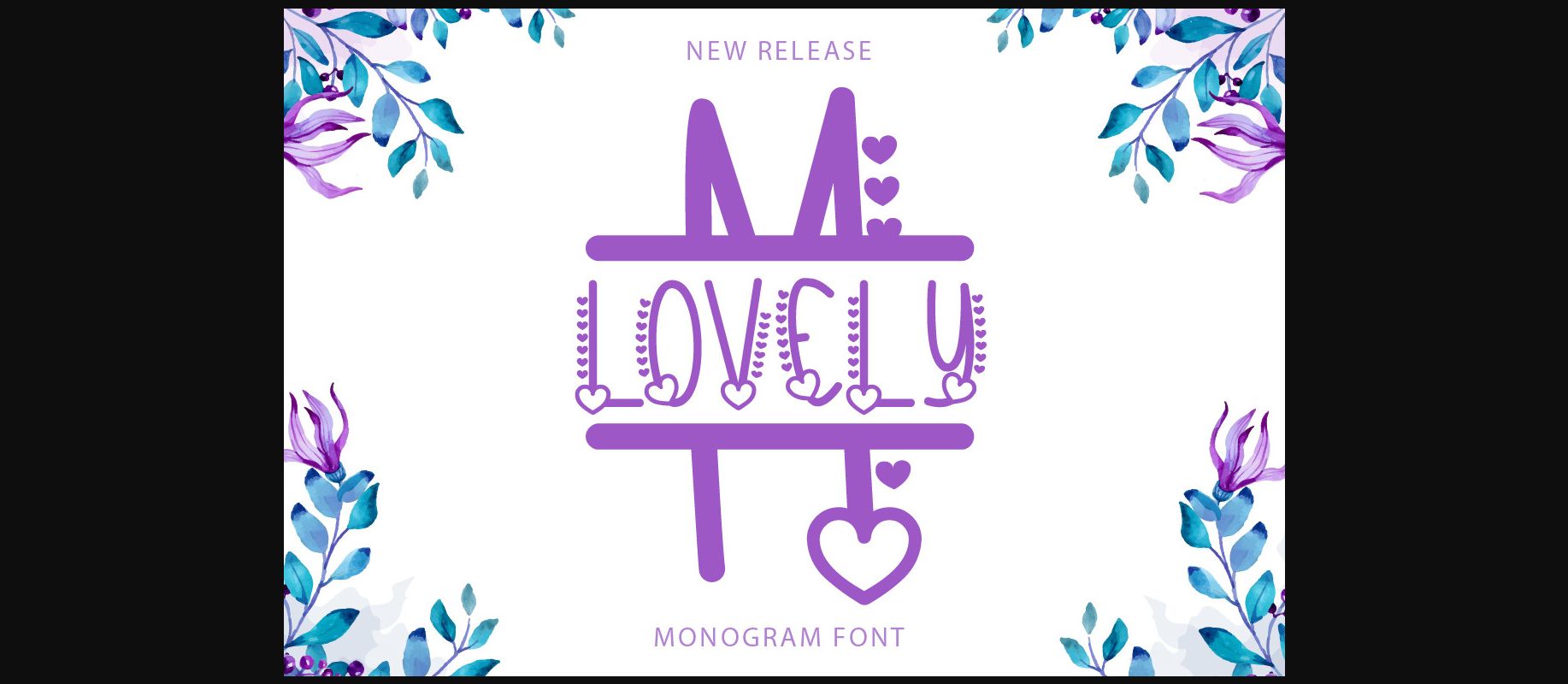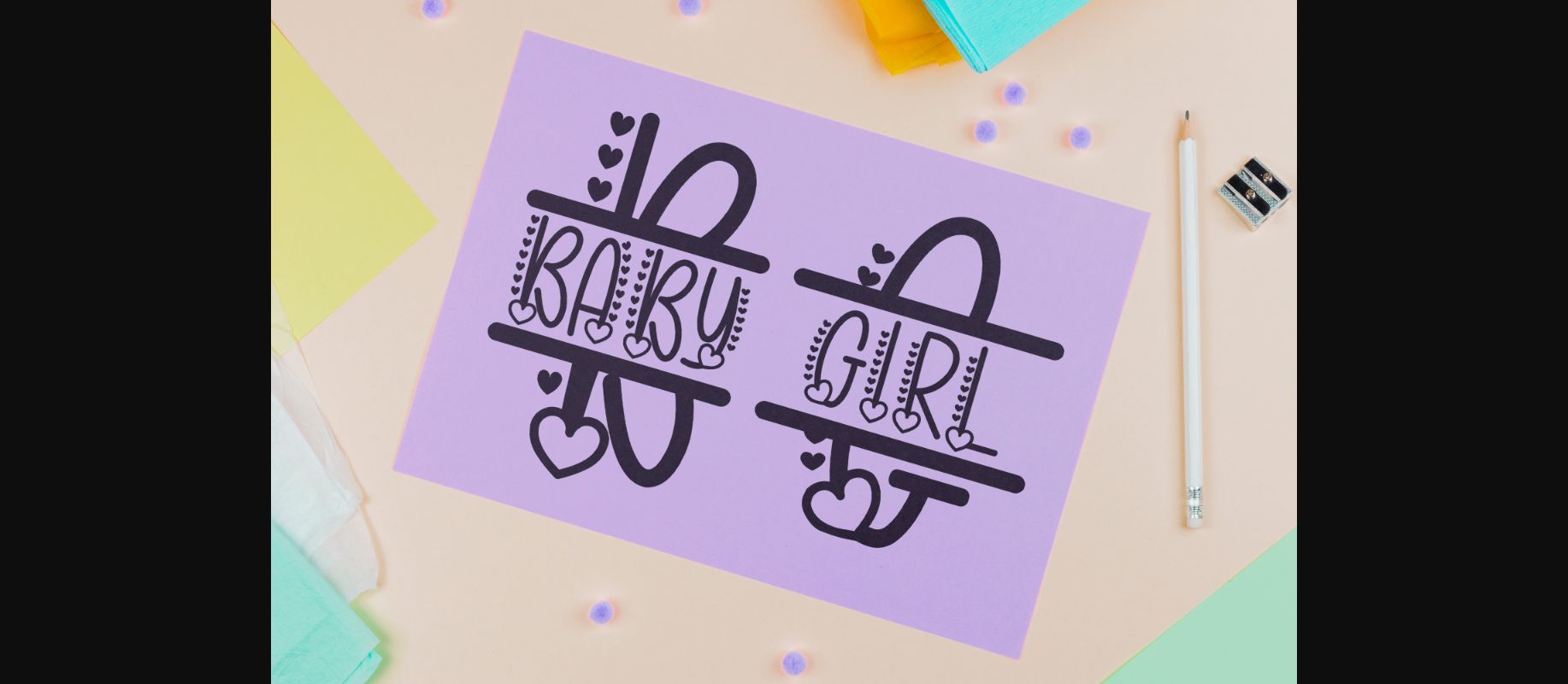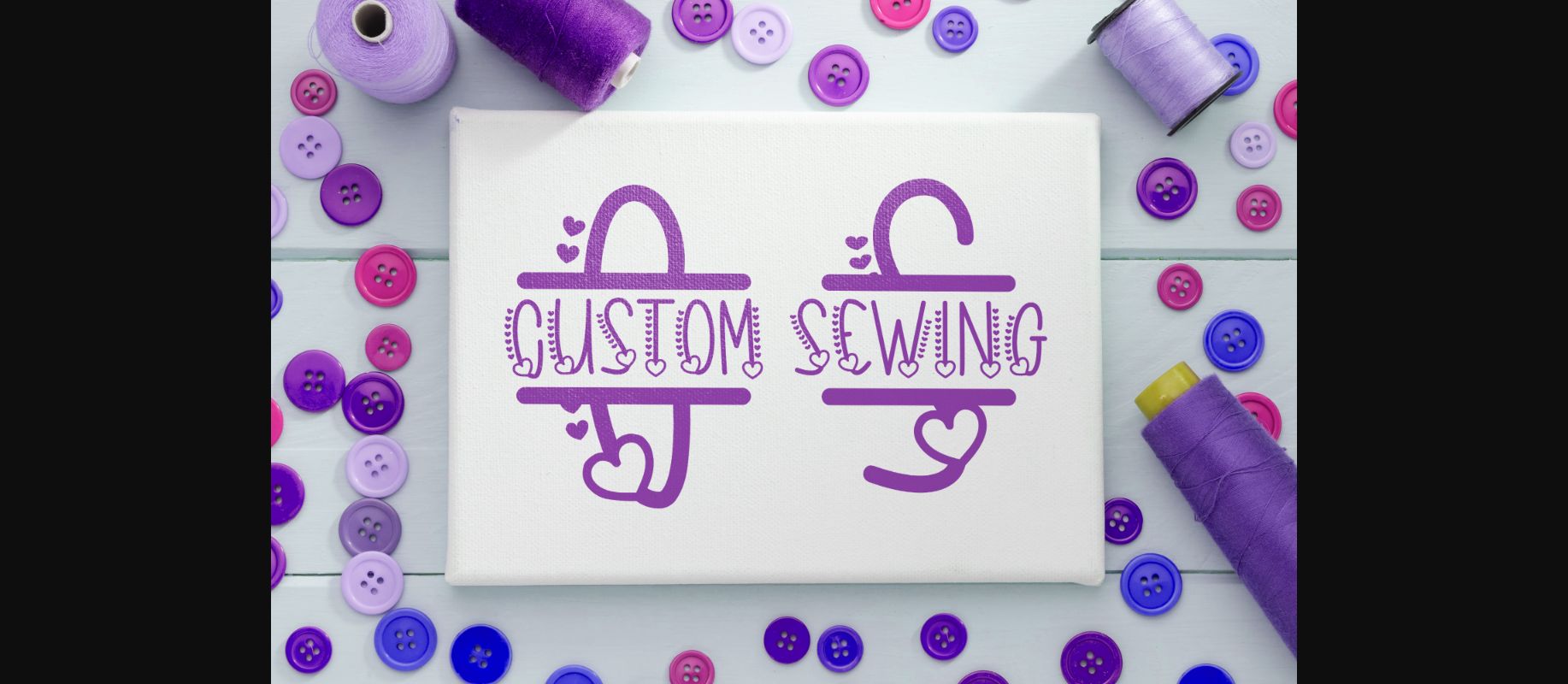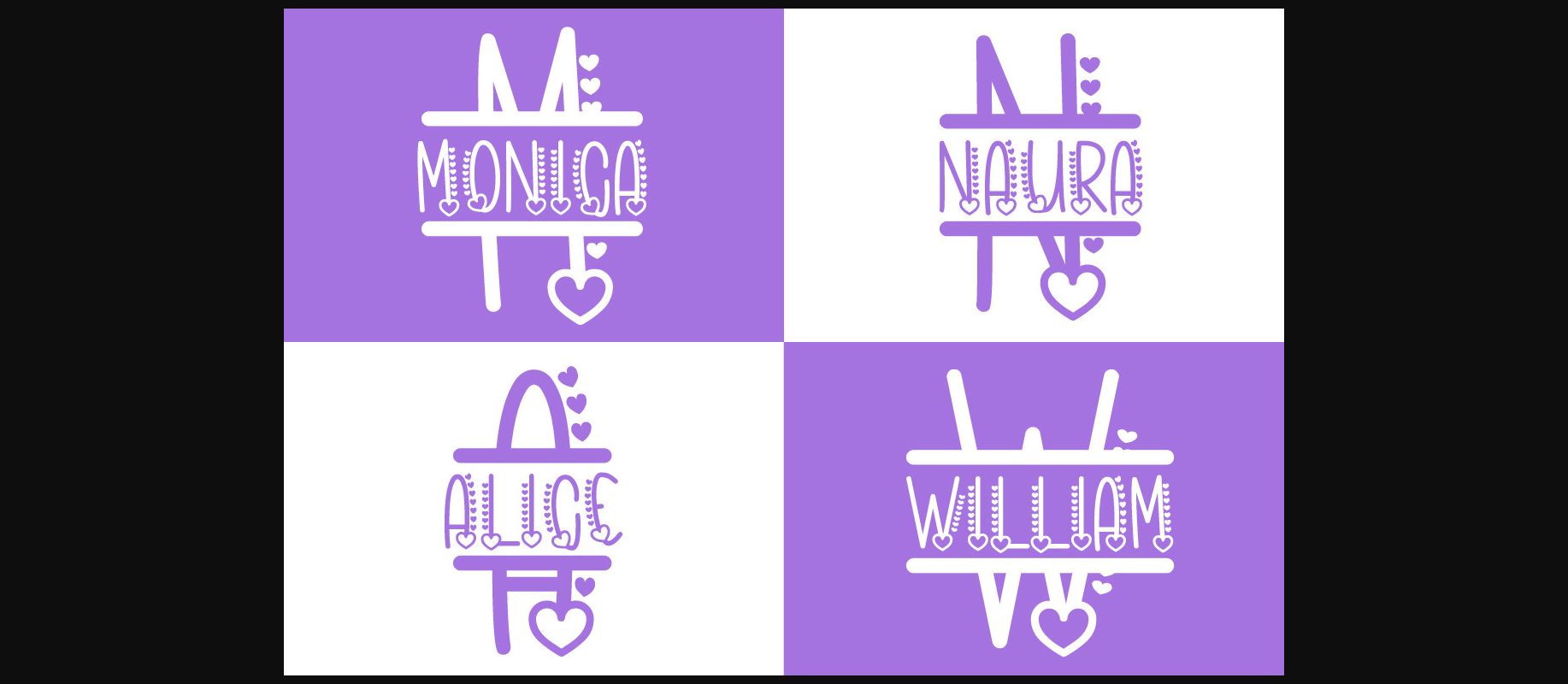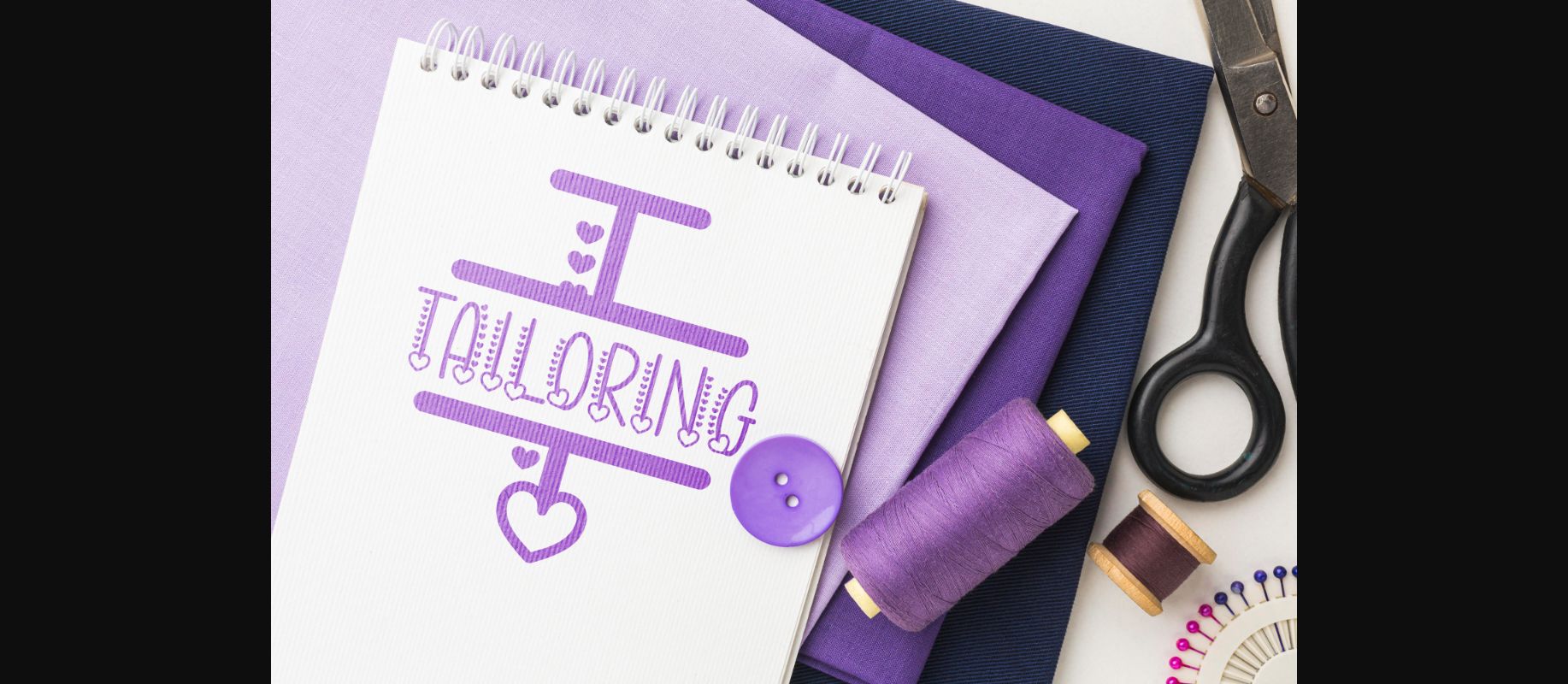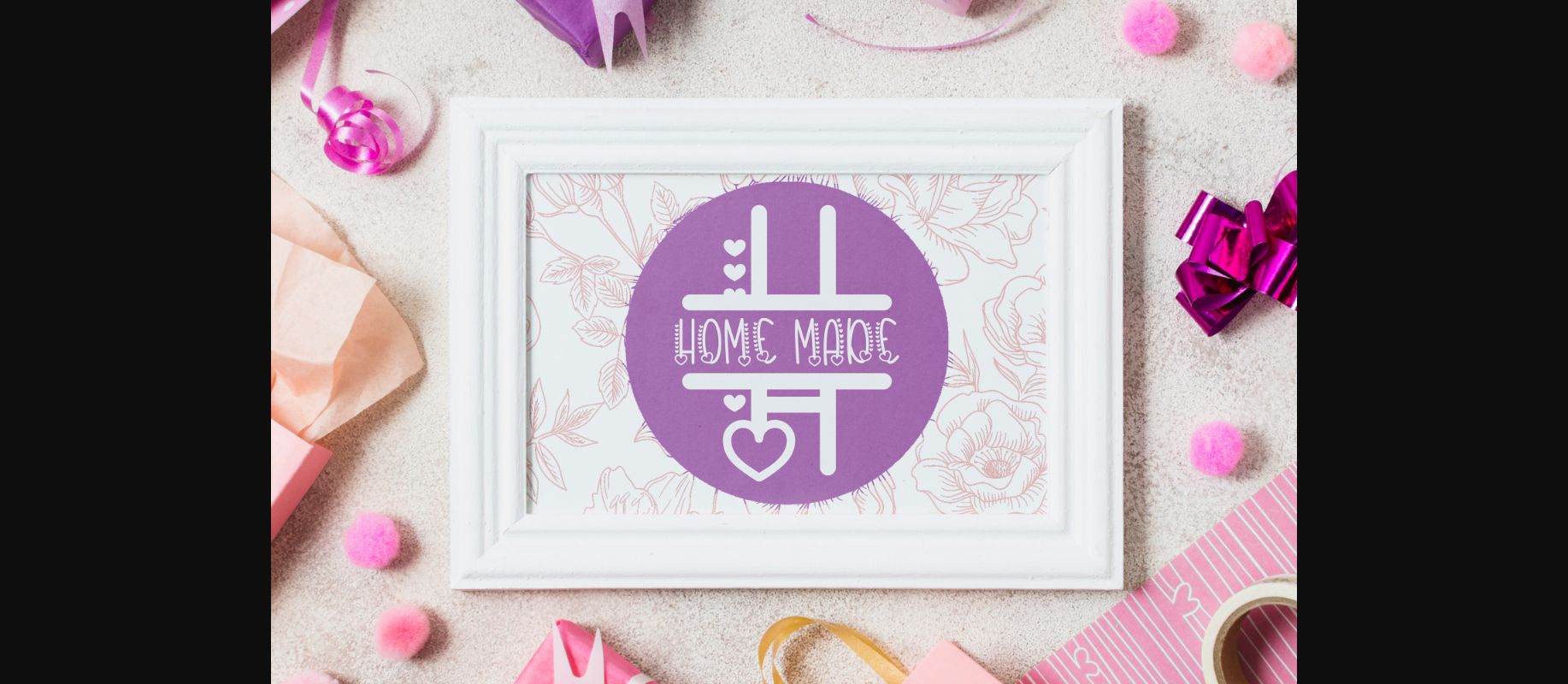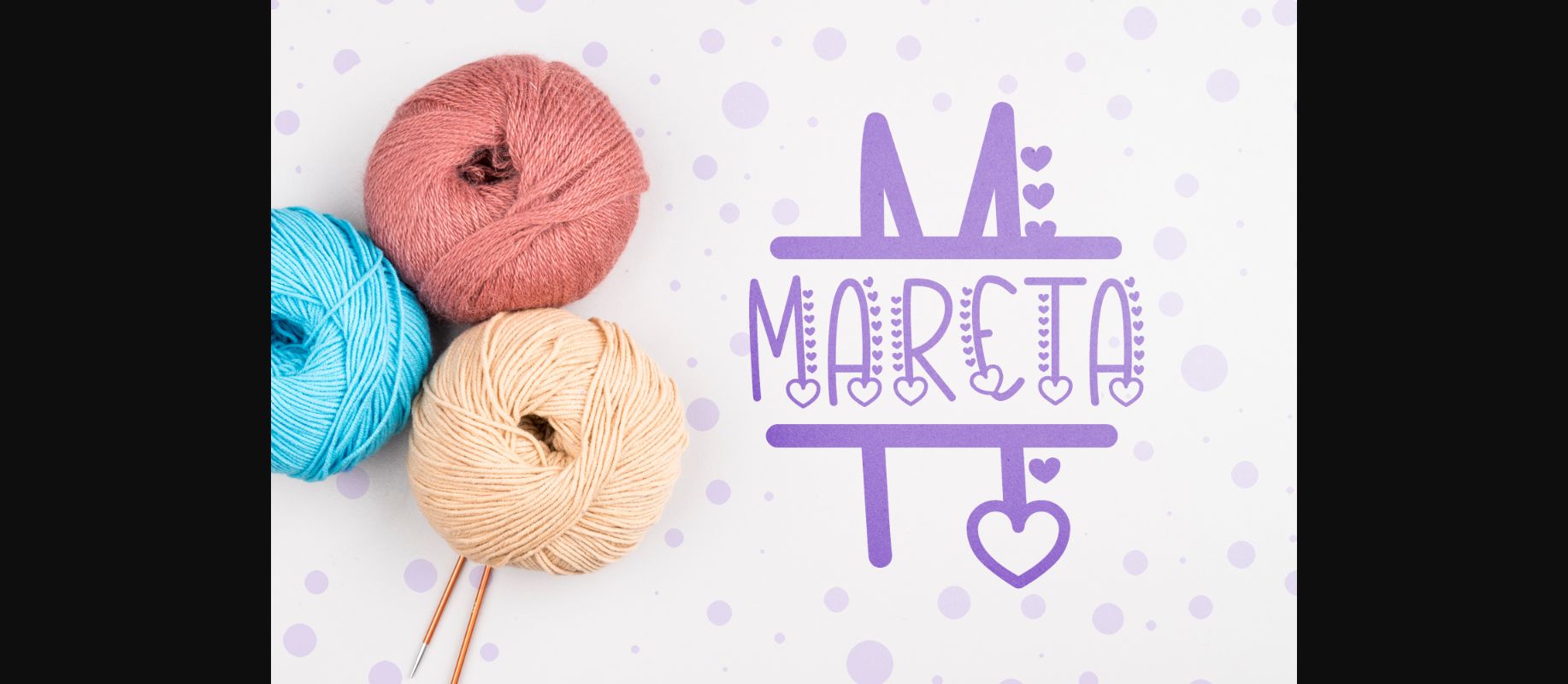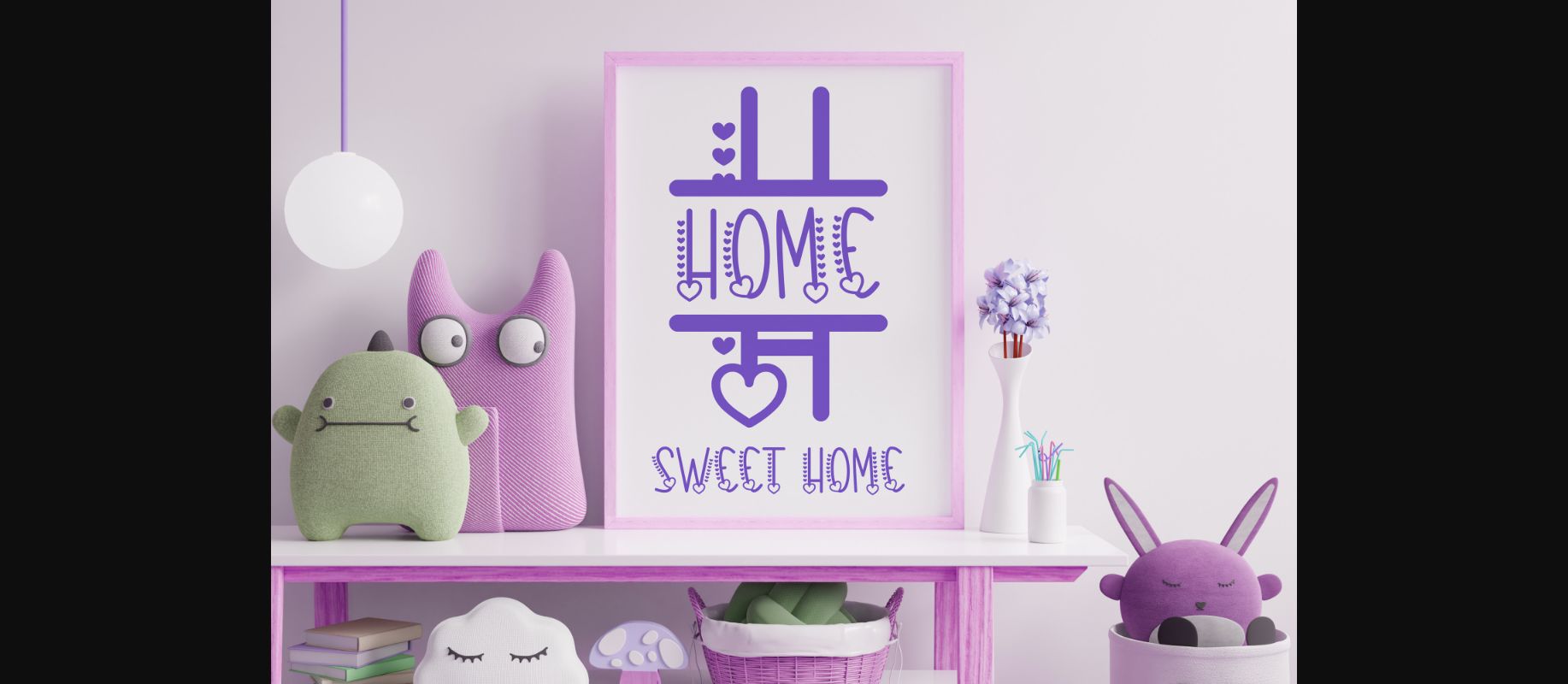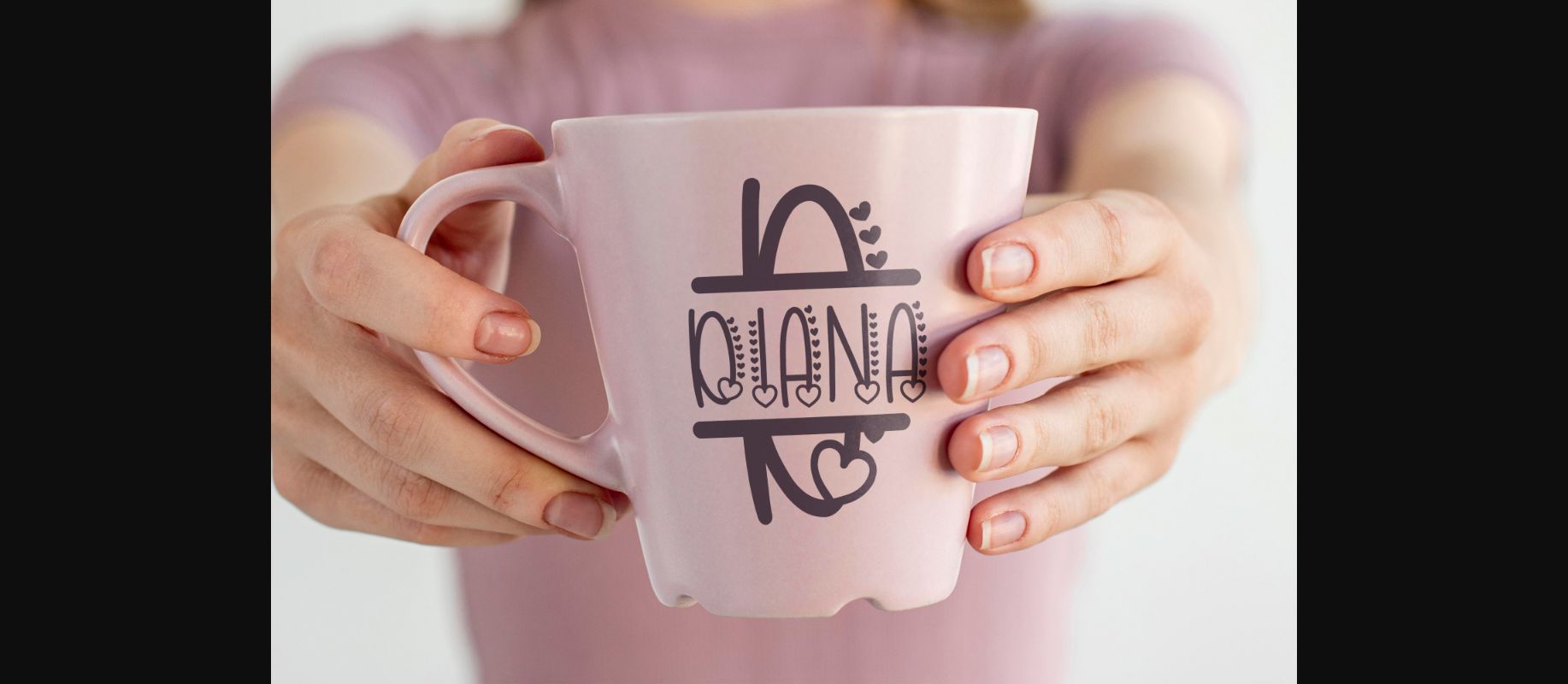
Lovely Monogram Font
About Lovely Monogram Font
Lovely Monogram is an incredibly cute and unique decorative font. Masterfully designed to become a true favorite, this font has the potential to bring each of your creative ideas to the highest level!